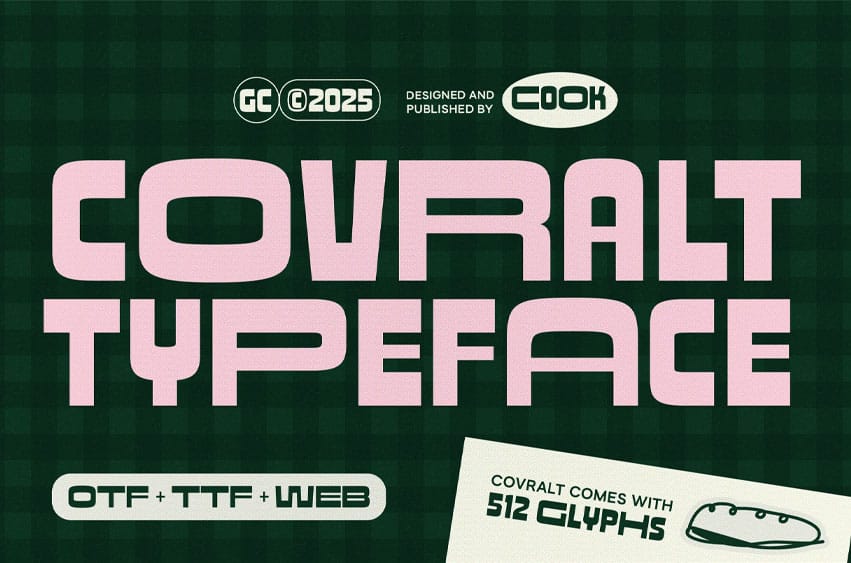
Covralt Font is a bold, wide display font featuring strong geometric shapes and striking proportions. Its modern, powerful character makes it ideal for headlines, posters, branding, and bold, standout design projects.